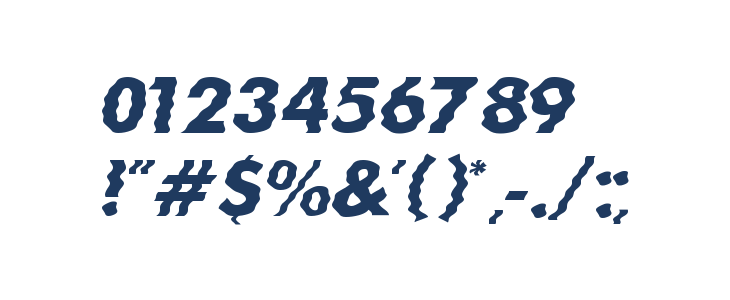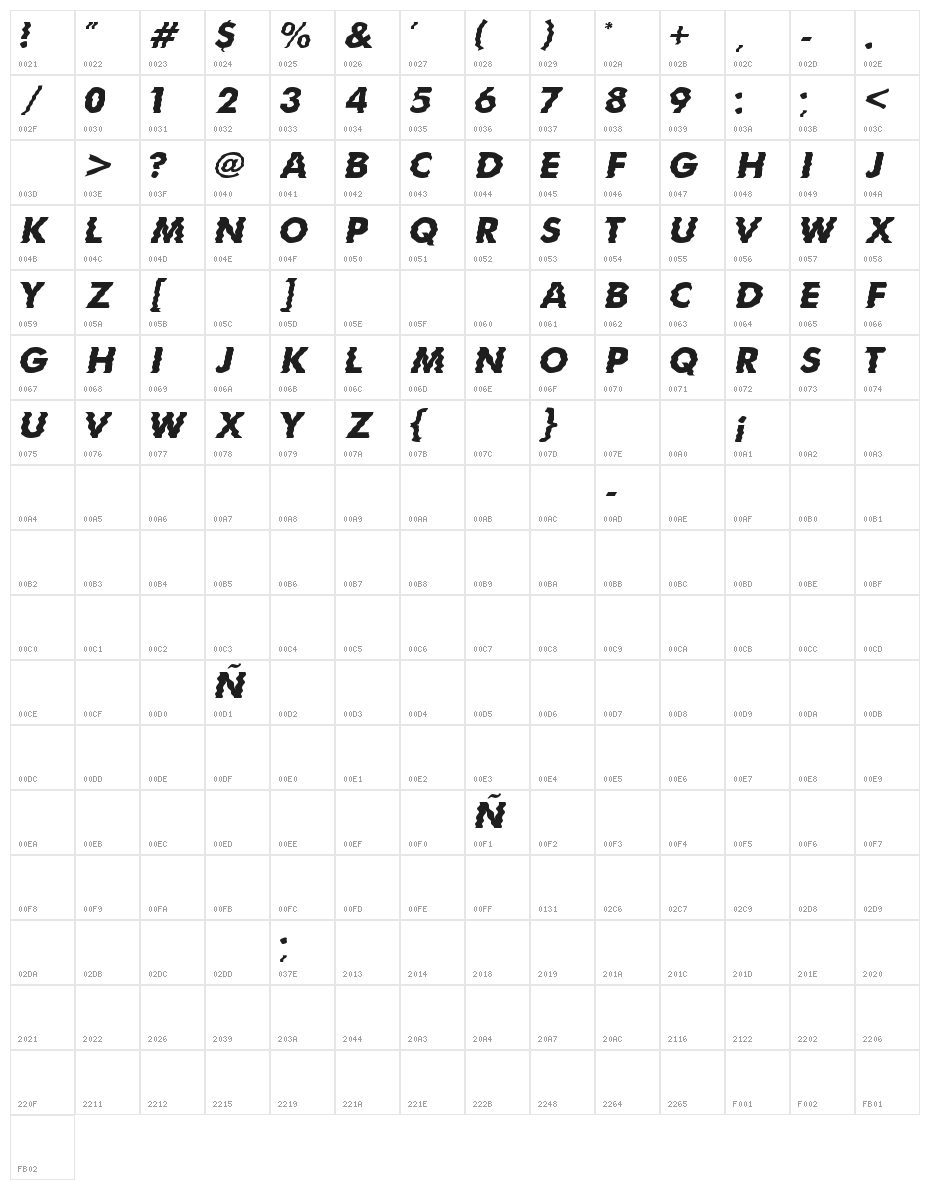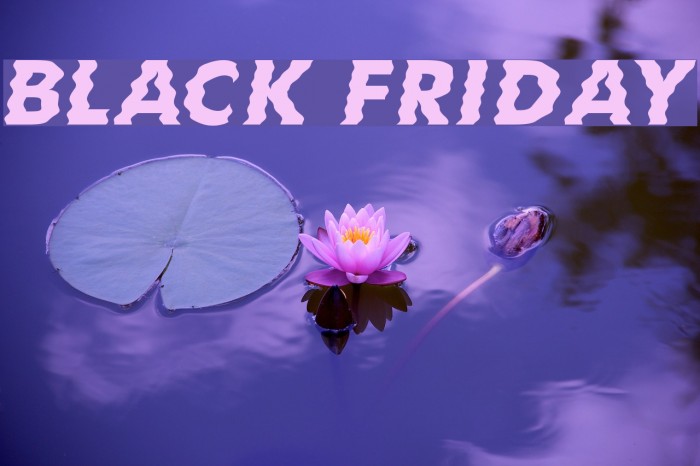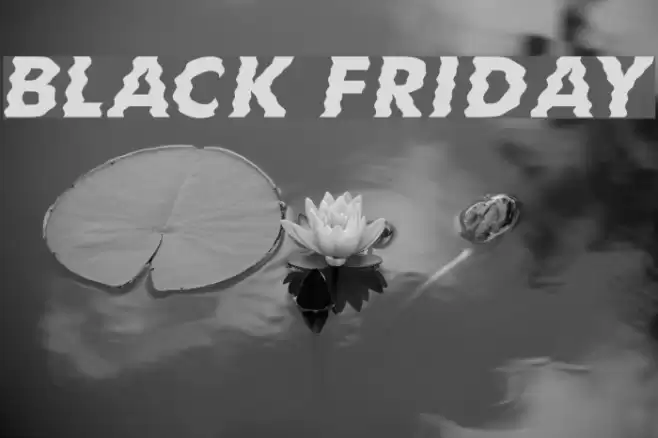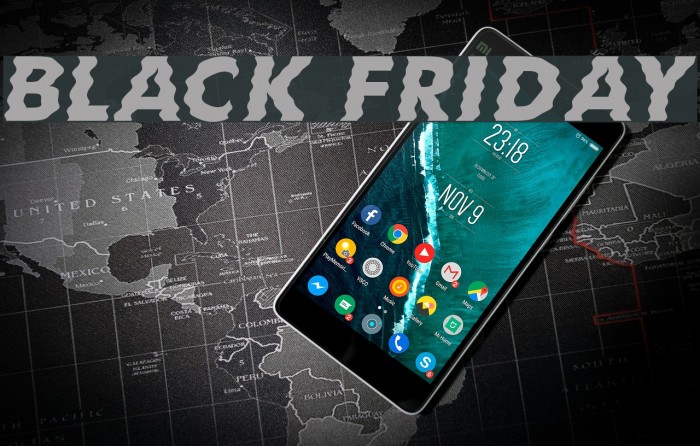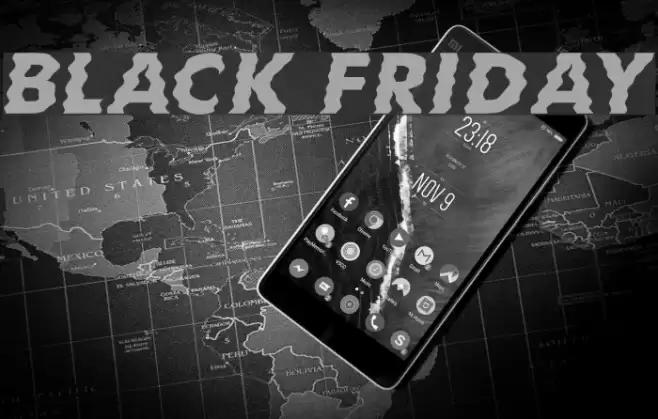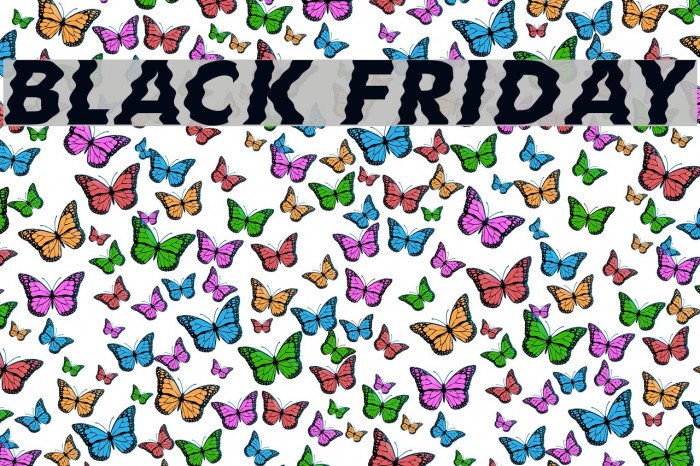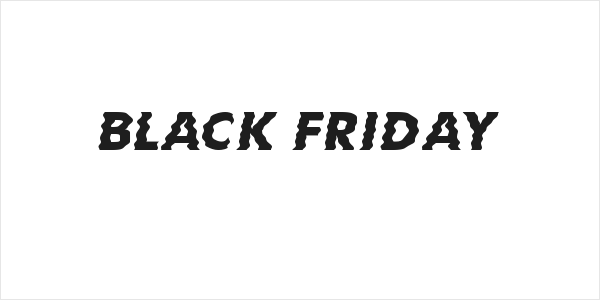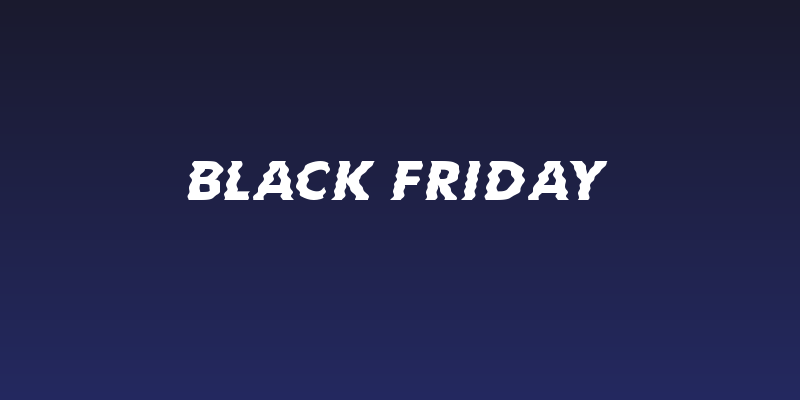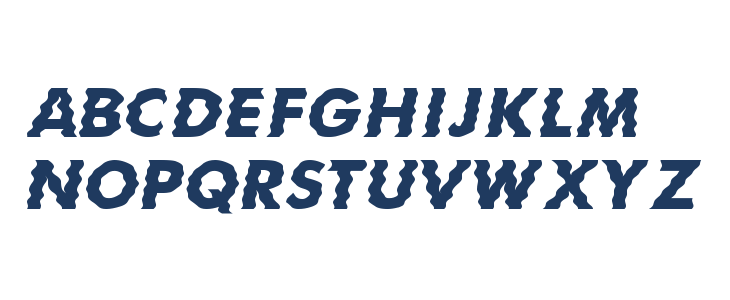
Black Friday Font
Black Friday Description
This font features a bold and dynamic style with a distinct zigzag pattern running through each character, giving it a sense of movement and energy. The uppercase and lowercase letters maintain a consistent weight, contributing to a cohesive look. The numbers and special characters follow the same design principles, ensuring uniformity across all glyphs. The font's unique design makes it stand out, while its boldness ensures readability even at smaller sizes. The style is reminiscent of retro or vintage themes, yet it maintains a modern twist with its sharp angles and clean lines.
| Overall Style | Retro, Modern |
| Proposed Projects | Ideal for branding, posters, and headlines where a bold and eye-catching font is needed. |